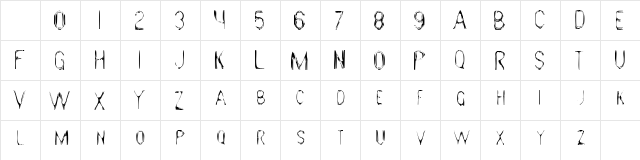
Gloomy Gus Regular
Design Context for Gloomy Gus Typeface
Gloomy Gus is a composed and adaptable typeface that performs quietly and consistently across a wide range of design contexts.